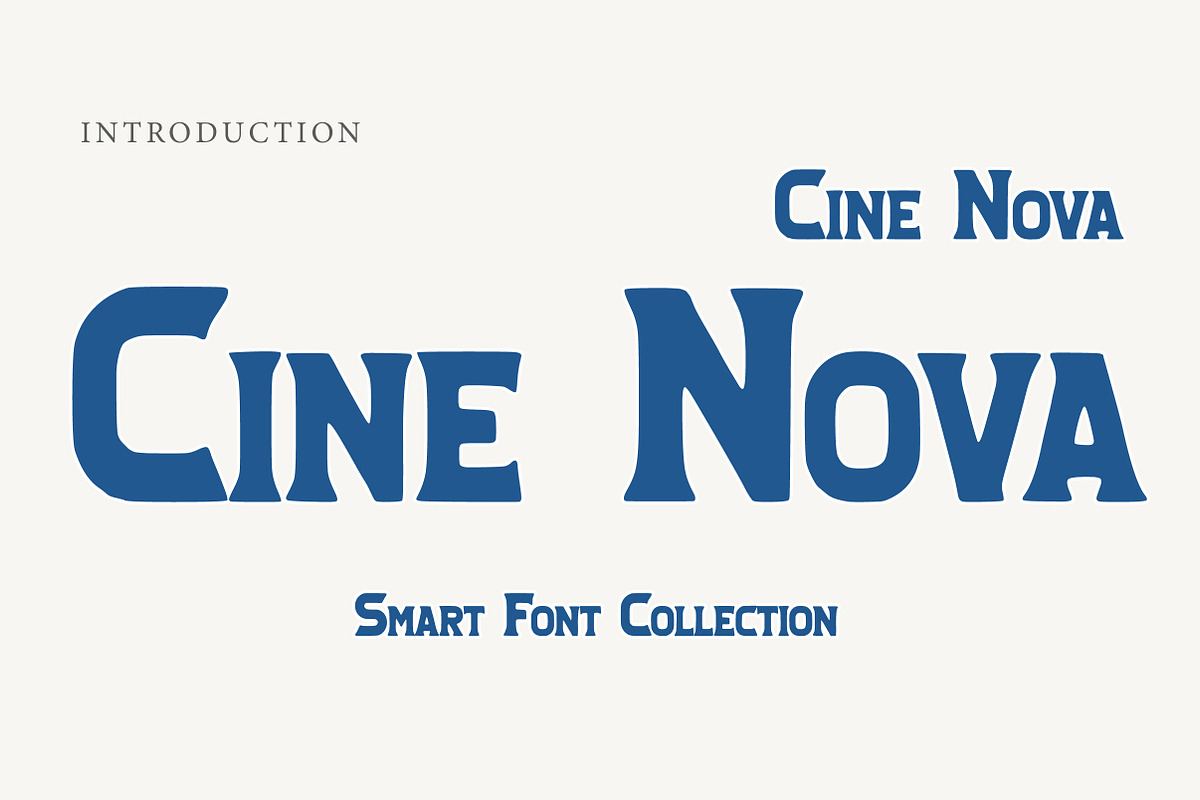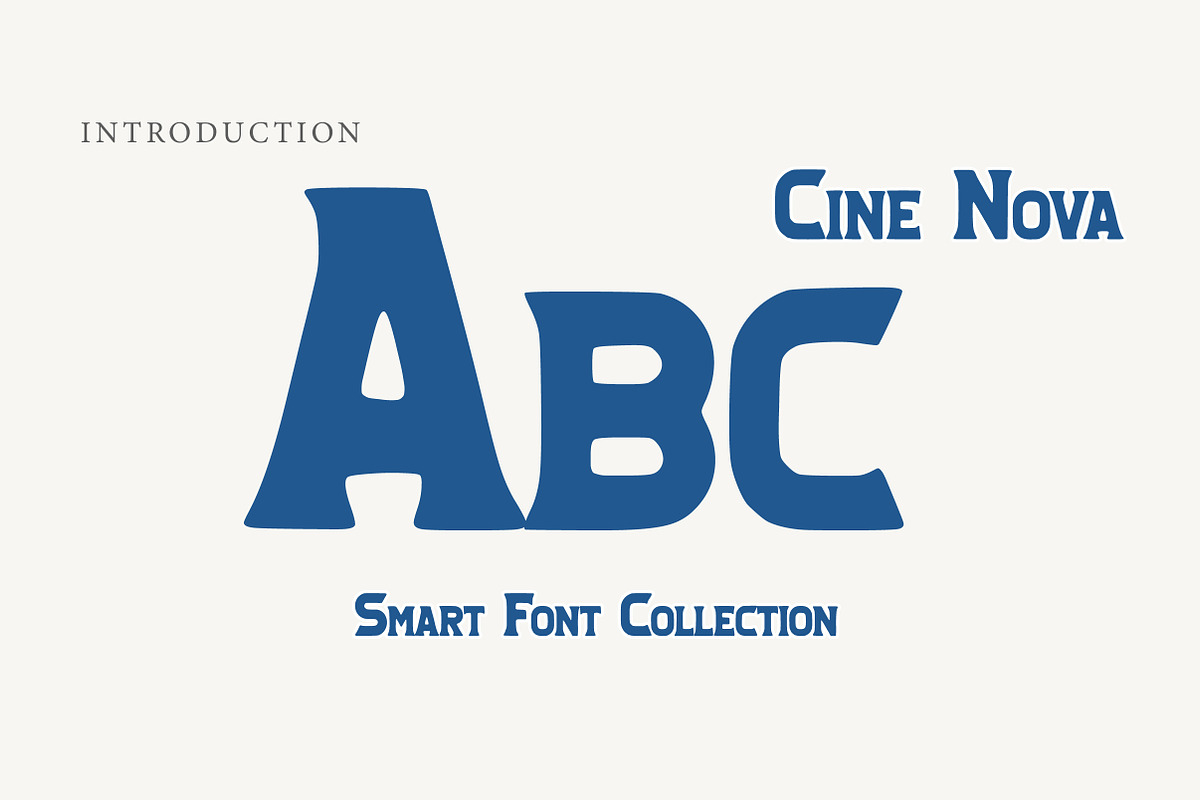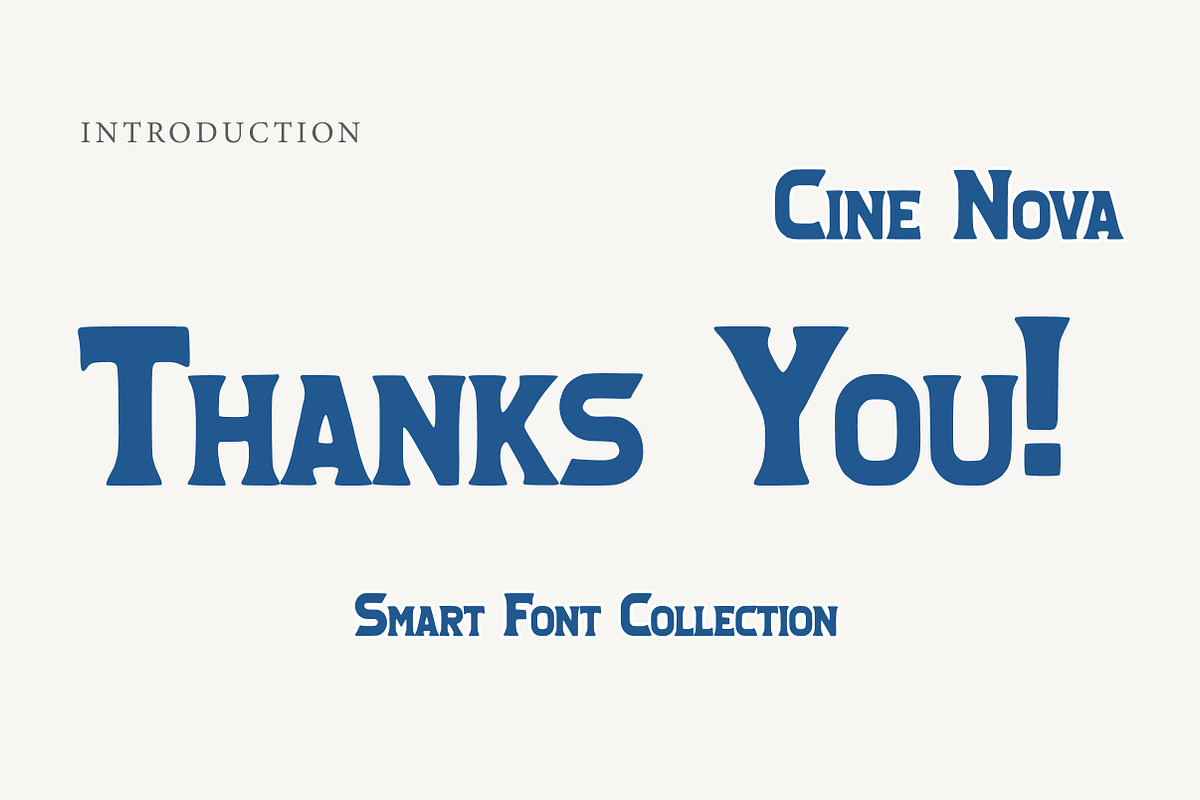
Cine Nova
Cine Nova is a bold cinematic display serif font with a vintage film-poster attitude. Its strong, high-contrast letterforms, dramatic curves, and slightly flared serifs create a classic yet powerful look—perfect for titles that need elegance, impact, and a timeless screen-worthy presence.
Designed for movie posters, trailers, book covers, branding, editorial headlines, and retro-inspired projects, Cine Nova brings a luxurious old-Hollywood vibe with modern clarity. Whether you’re creating a cinematic logo, a bold headline, or a premium cover design, this font delivers striking character and confident readability.
Movie Posters & Title Design
Book Covers & Editorial Headlines
Branding & Luxury Logos
Retro / Vintage Concepts
Theater, Festival & Event Posters
Album Art & Merchandise
Cinematic Social Media Graphics
Give your typography a dramatic, classic film feel with Cine Nova.